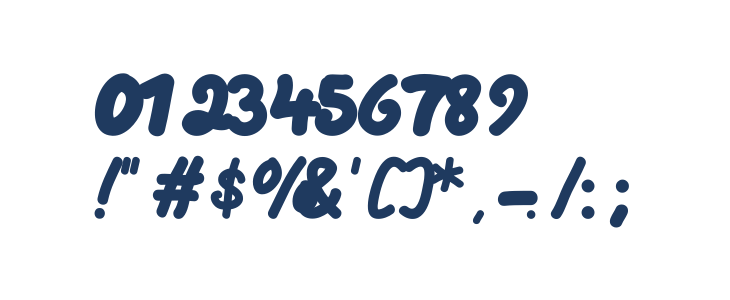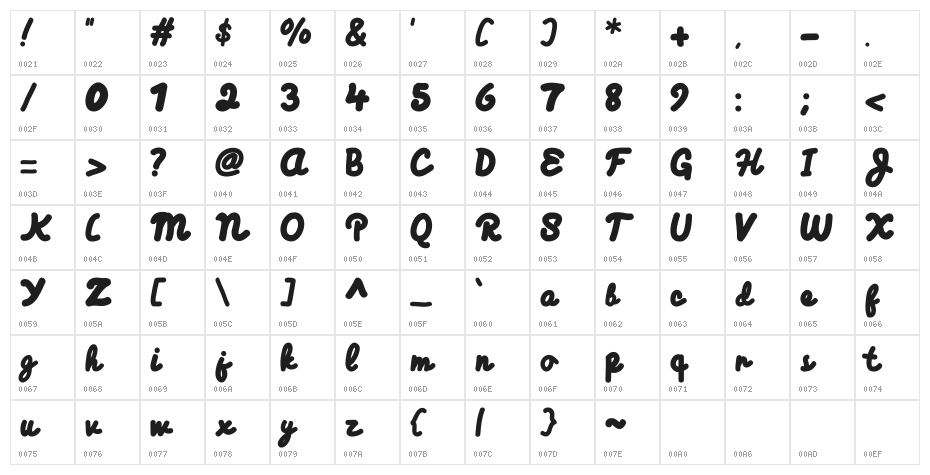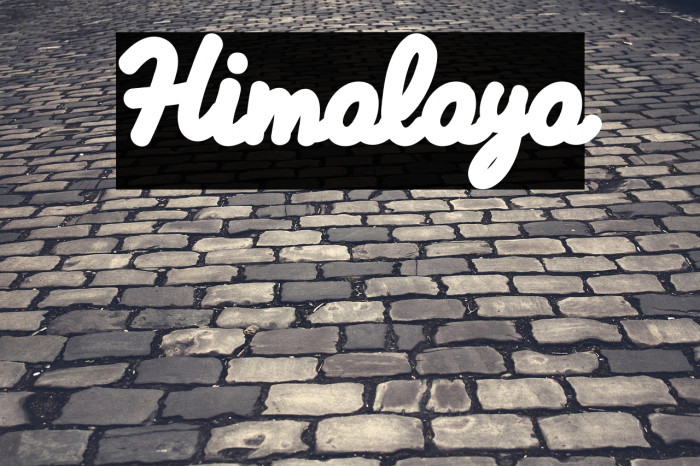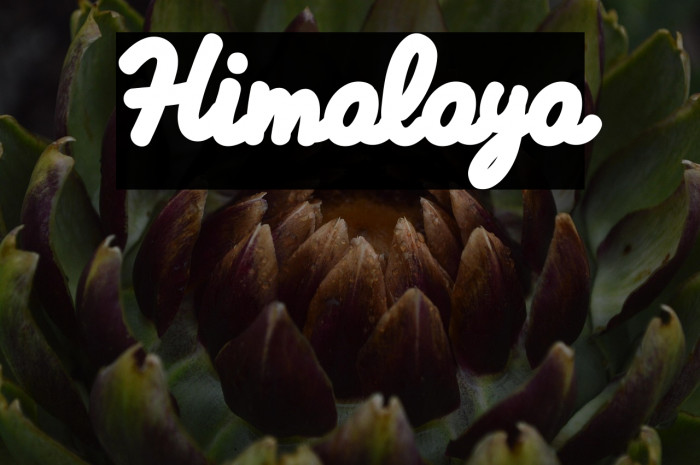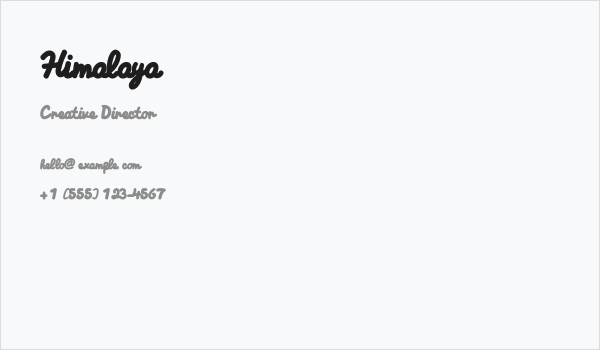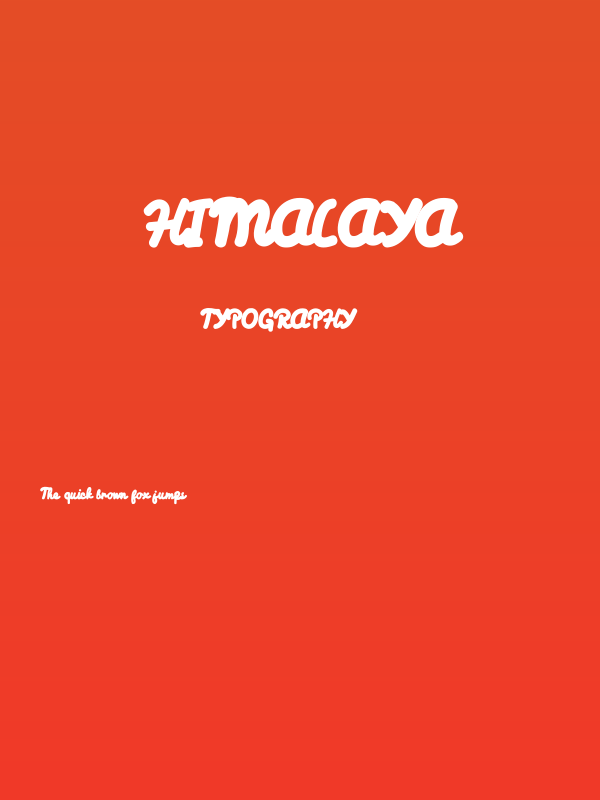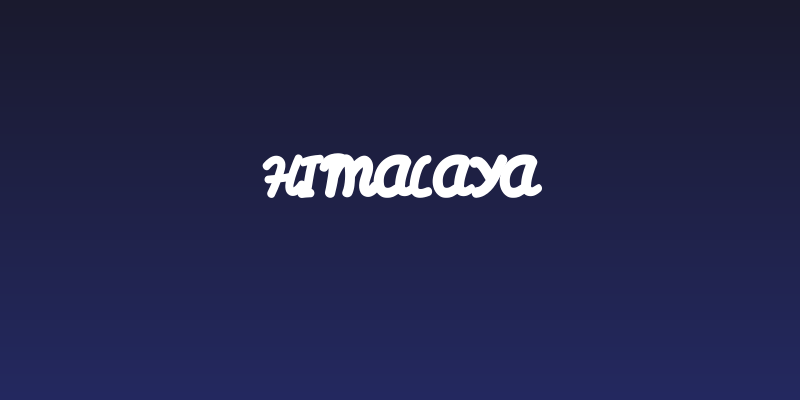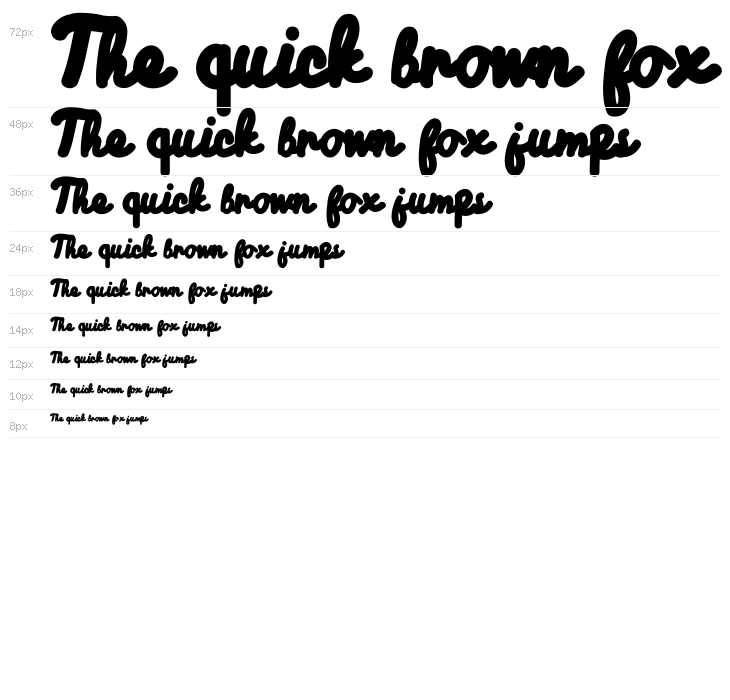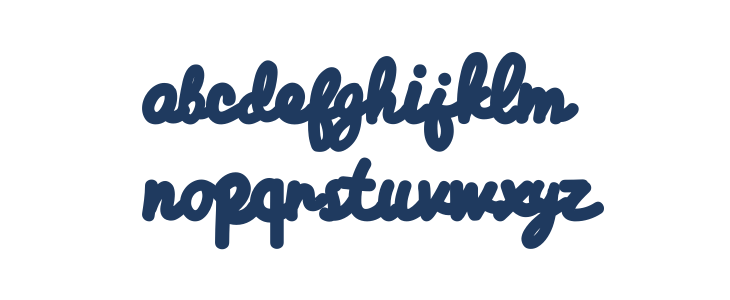
Himalaya Font
Himalaya Description
This font exhibits a bold, cursive style with a playful and energetic appearance. The characters are interconnected, creating a smooth flow that mimics natural handwriting. The strokes are thick and consistent, providing a strong visual impact. The uppercase letters maintain a uniform height, while the lowercase letters are slightly smaller, enhancing readability. The numbers and special characters are designed to match the overall style, ensuring cohesion across all elements. This font's dynamic and lively nature makes it suitable for projects that require a personal touch.
HIMALAYA UPPERCASE
HIMALAYA LOWERCASE
HIMALAYA OTHER CHARS
| Proposed Projects | Ideal for greeting cards, invitations, logos, and branding materials that seek a personal and lively touch. |